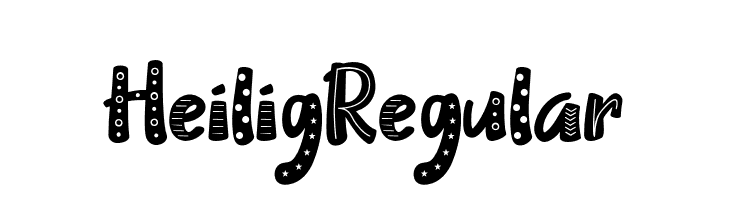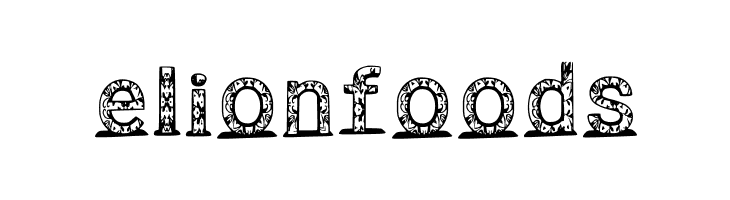
( Fonts by Indra Gunawan )
A bold, decorative font with a unique patterned texture.
( Fonts by Jetsmax Studio )
A whimsical, leaf-inspired font with elegant curves and natural motifs.
( Fonts by Kong Font )
A playful, italicized font with a unique dot pattern and high contrast strokes.
( Fonts by imagex )
A bold, decorative font with a dotted marquee style, perfect for festive designs.
( Fonts by Jetsmax Studio )
An elegant, whimsical font with flowing, cursive-like strokes and intricate swirls.
( Fonts by Brithos Type )
A playful, handwritten font with bold, irregular strokes.
( Fonts by Bangkit Tri Setiadi )
A playful, bold font with thick, rounded strokes and a whimsical style.
( Fonts by Stefani Letter )
A playful, bold, and rounded hand-drawn font with a whimsical style.
A bold, decorative font with a mechanical and futuristic style.
( Fonts by Emanes Dsign )
An artistic, narrow font with elongated characters and a playful yet sophisticated style.